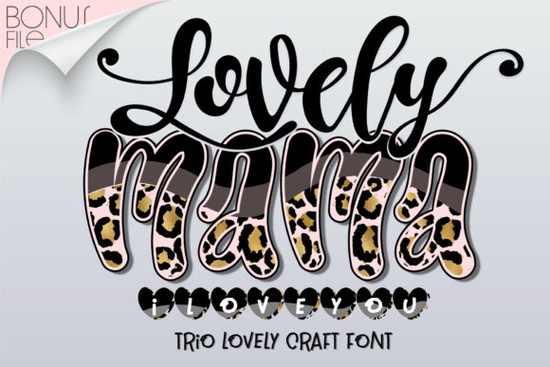
If you need a reliable lettering pair for motherhood-themed crafts, seasonal gifts, or boutique branding, Lovely Mama I Love You Font Font delivers exactly that. The package includes two complementary typefaces that work seamlessly together, giving you a ready-made combination for quotes, labels, and printable goods. Whether you run a print-on-demand shop, design digital stickers, or create handmade cards, having a matched script and display set saves time and keeps your layouts consistent.
What makes these two typefaces work so well together?
The designer built this duo to balance personality with readability. One font carries a warm, handwritten flow that feels personal, while the companion style offers clean, structured letterforms to ground your composition. When placed side by side, the contrast creates visual hierarchy without competing for attention. This is especially useful for arranging phrases like “Mama deserves the best” or short tags like “Handmade with love.” The spacing and x-height are tuned so you rarely need to adjust kerning manually, which speeds up your workflow in Canva, Illustrator, or Cricut Design Space.
Which projects get the most value from this lettering set?
Crafters and small business owners typically reach for this combination when they want a cheerful, boutique feel. Here are the formats where it performs best:
- Apparel and tote bags: Short maternal quotes paired with simple line art.
- Party and baby shower printables: Welcome signs, favor tags, and cupcake toppers.
- Digital planners and stickers: Headers and highlight badges that stand out cleanly.
- Social media templates: Quote graphics and promotional banners for family-focused brands.
How do you access the extra glyphs and swashes?
This package is fully PUA encoded, meaning every alternate character, decorative swash, and punctuation mark is accessible without special workarounds. In most design programs, simply open the glyph panel, scroll through the options, and double-click to insert them into your text box. For cutting machine users, the clean vector paths translate smoothly into SVG exports, so your weeding steps stay predictable. If you prefer working with this matching display set in Cricut or Silhouette, just install the OTF or TTF files at the system level before opening your cutting software.
What should you pair it with for balanced layouts?
Even though the two fonts complement each other, you will sometimes need a third typeface for fine print or website URLs. Stick to simple sans-serif styles for body text so the decorative letters remain the focal point. When building a broader brand kit, you can mix in athletic letterforms for sporty family merch, or lean into groovy retro scripts for vintage-inspired collections. Limit your layout to two or three type families max, and let white space handle the rest.